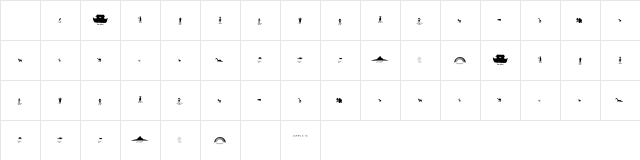
Noah's Ark Regular
Design Context for Noah's Ark Typeface
Noah's Ark is a composed and adaptable typeface that performs quietly and consistently across a wide range of design contexts.